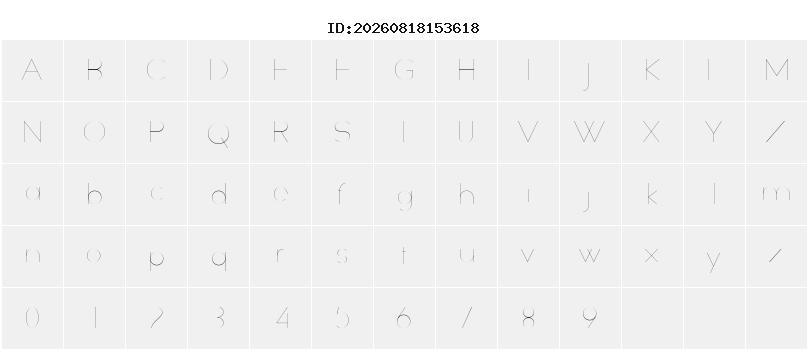
Slim Extreme Preview
• Font Name: Slim Extreme
• Full Font Name: Slim Extreme
• Designer: Roland Hüse
• Manufacturer: Roland Hüse
About Slim Extreme.ttf
Slim Extreme.ttf is a modern, elegant sans-serif font designed for ultimate readability and visual harmony. Perfect for branding, headlines, web design, and print materials.